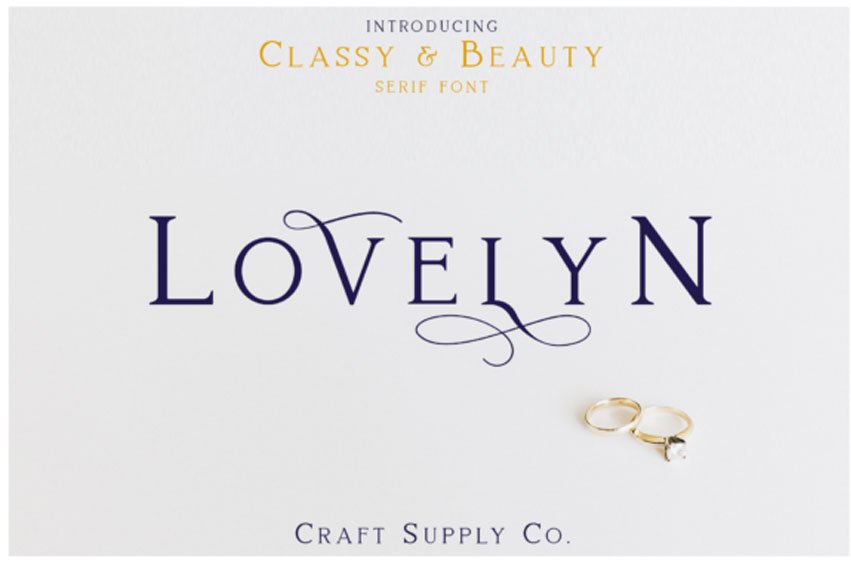
Lovelyn Font
Lovelyn Font is a beautifully elegant serif font that offers a wide range of possibilities given its sensibility and character alternates.
This is an attractive font that produces standout decorative lettering for your headline and display projects.